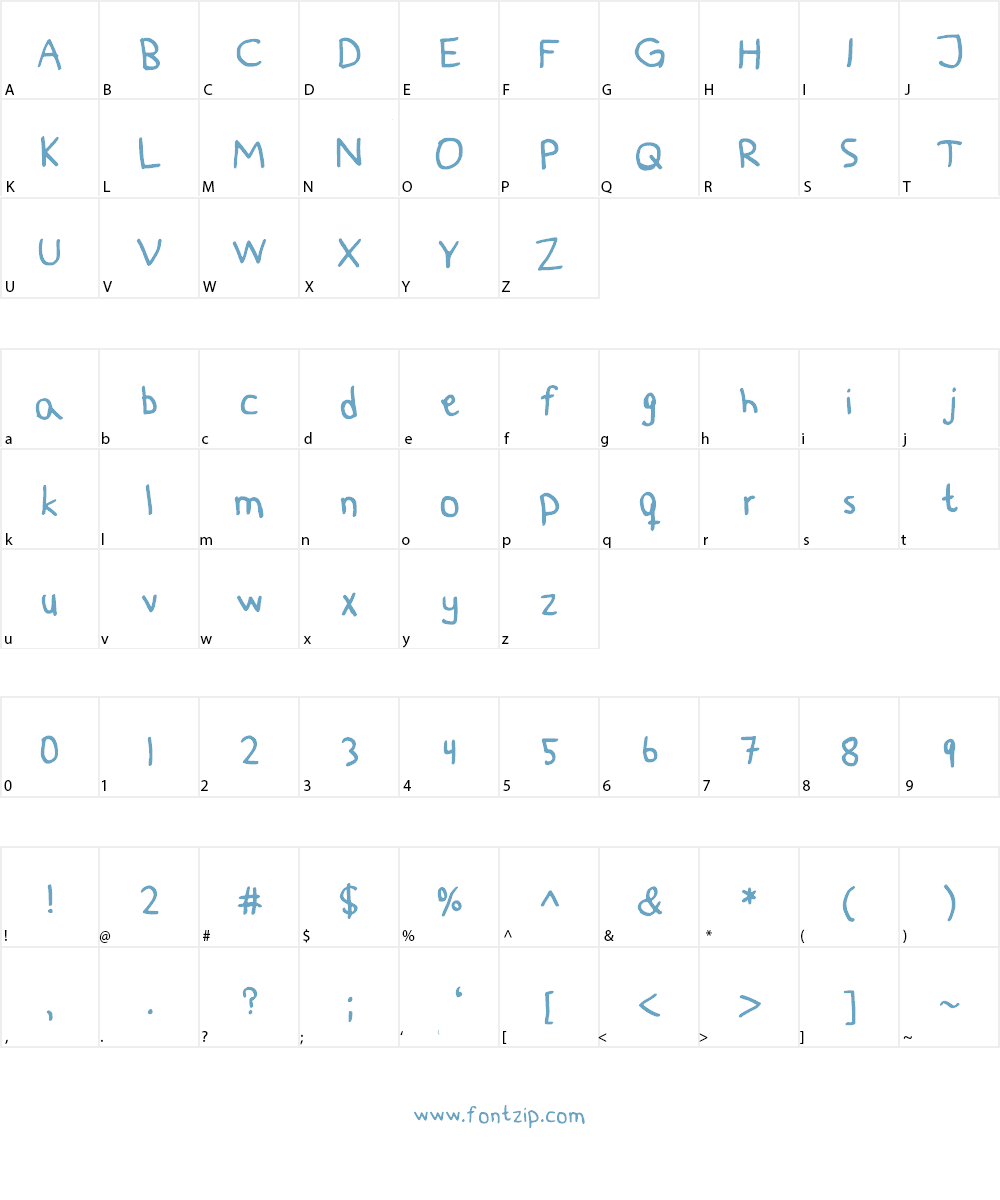
Paddis Handwritten is a handwritten font.
It's handwritten by a swedish boy.
It works with this languages:
► Czech
► German
► Greek
► Spanish
► French
► Italian
► Polish
► Hebrew
► Portuguese
► Swedish
► Danish
► Finnish
► Norwegain
► Turkish